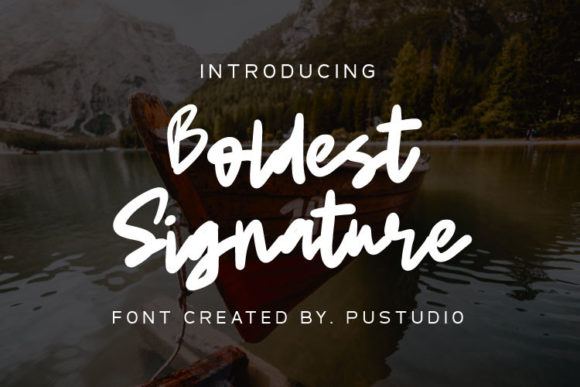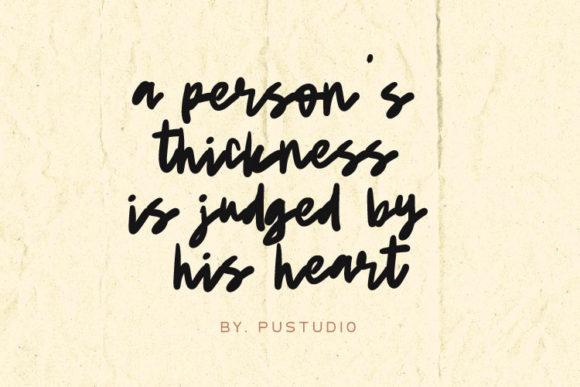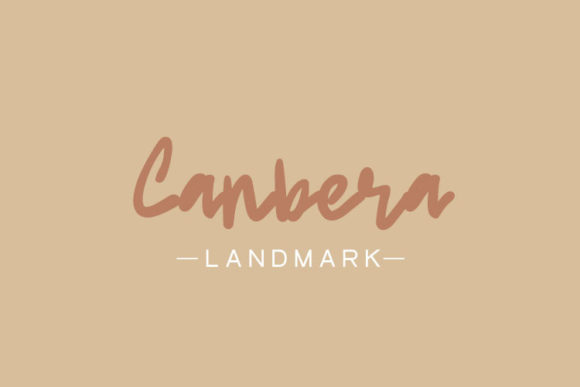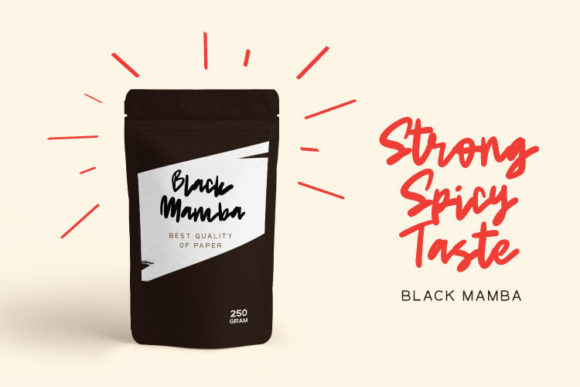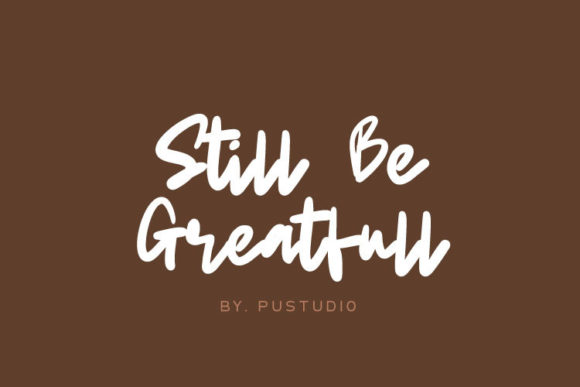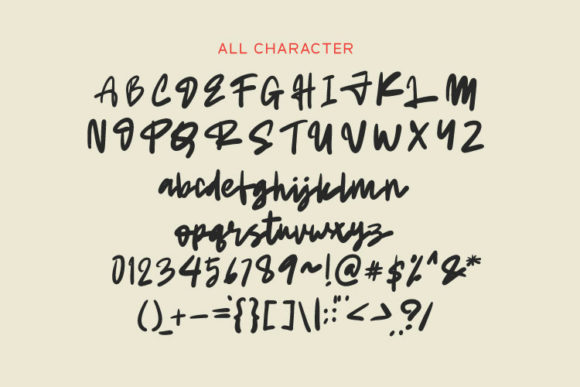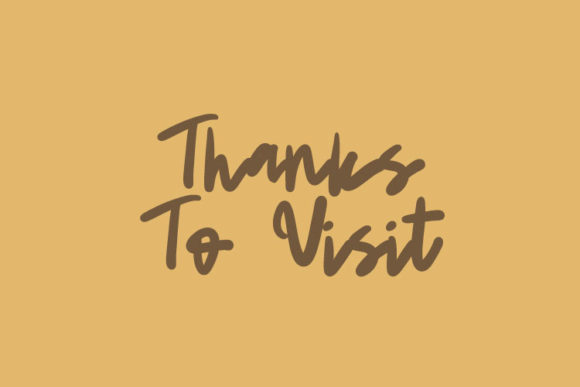
Boldest Signature Font
About Boldest Signature Font
Boldest Signature is a stylish and relaxed script font. It can be used for various purposes such as logos, wedding invitations, headings, t-shirts, letterhead, signage, labels, news, posters, badges and so much more.